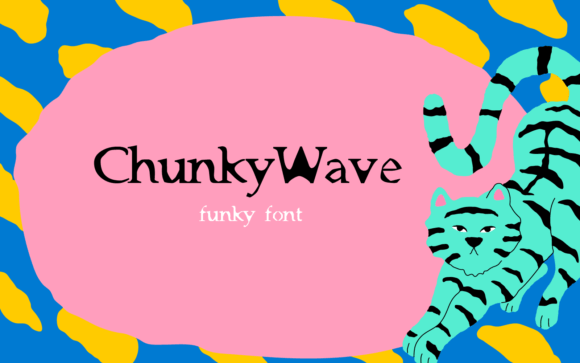
Chunky Wave Font: A Bold and Dynamic Typeface for Creative Projects
The Chunky Wave Font is a unique and eye-catching typeface that boasts a playful yet assertive character. Its thick, rounded strokes and distinctive curves give it a striking presence, making it perfect for grabbing attention in headlines, logos, or posters. With its expressive personality and creative flair, this font adds a sense of fun and energy to any project, while maintaining a professional edge for bold branding.
Design and Characteristics
The Chunky Wave Font features thick, rounded strokes that give it a sturdy and robust appearance. Its unique curves and rounded edges add a touch of playfulness, making it perfect for creative projects that require a bold and dynamic typeface. The font’s distinctive design elements, such as its chunky strokes and wave-like curves, give it a one-of-a-kind appearance that sets it apart from other typefaces.
Key Features:
- Thick, rounded strokes for a sturdy and robust appearance
- Unique curves and rounded edges for a playful touch
- Chunky strokes and wave-like curves for a distinctive design
- Perfect for headlines, logos, posters, and other creative projects
Uses and Applications
The Chunky Wave Font is a versatile typeface that can be used in a variety of creative projects. Its bold and dynamic design makes it perfect for grabbing attention in headlines, logos, and posters. It can also be used in branding and advertising materials, such as flyers, brochures, and business cards. Additionally, the font’s playful and energetic personality makes it suitable for use in children’s books, educational materials, and other kid-friendly projects.
Ideal Projects:
- Headlines and titles for articles, blog posts, and social media
- Logos and branding materials for businesses and organizations
- Posters and flyers for events, concerts, and festivals
- Children’s books and educational materials
- Advertising materials, such as billboards and magazine ads
Benefits and Advantages
The Chunky Wave Font offers several benefits and advantages for creative professionals and designers. Its bold and dynamic design makes it perfect for grabbing attention and standing out in a crowded market. The font’s playful and energetic personality adds a sense of fun and creativity to any project, while its professional edge ensures that it remains suitable for bold branding and advertising.
Benefits:
- Grabs attention and stands out in a crowded market
- Adds a sense of fun and creativity to any project
- Maintains a professional edge for bold branding and advertising
- Perfect for creative projects that require a bold and dynamic typeface
- Easy to read and understand, even in large and small sizes
The Chunky Wave Font is a bold and dynamic typeface that boasts a playful yet assertive character. Its thick, rounded strokes and unique curves give it a striking presence, making it perfect for grabbing attention in headlines, logos, or posters. With its expressive personality and creative flair, this font adds a sense of fun and energy to any project, while maintaining a professional edge for bold branding. Whether you’re a designer, artist, or creative professional, the Chunky Wave Font is a versatile and effective tool that can help you achieve your creative goals.